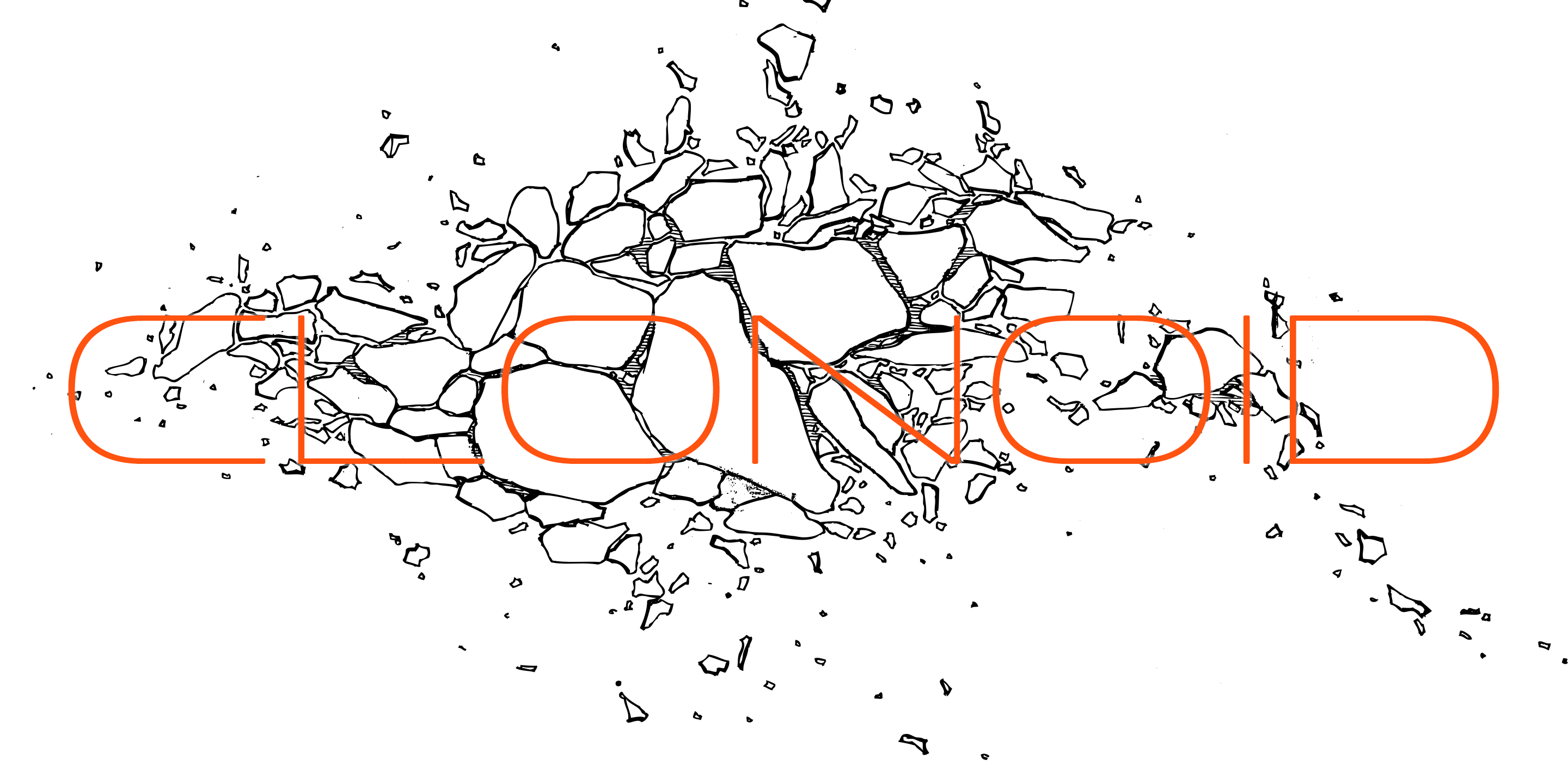
Clonoid Font is an incredibly versatile typeface, perfect for a wide range of design applications. Imagine it gracing the covers of sci-fi novels, enhancing the edgy vibe of gaming interfaces, or bringing a futuristic touch to tech company branding. Its unique aesthetic also makes it ideal for movie posters, album art, and striking website headers that demand attention. If you're looking to create an impact in digital art, event promotions, or even apparel design, Clonoid Font will undoubtedly elevate your visual communication.
What makes Clonoid Font so exciting is its distinct blend of modernism and a subtly retro, almost industrial feel. It’s a font that speaks volumes without being overly decorative, offering clean lines and powerful letterforms that command respect. This makes it an excellent choice for projects that aim for a sophisticated yet bold identity. Designers are constantly seeking fonts that can bridge the gap between contemporary trends and timeless appeal, and Clonoid Font does exactly that, providing a fresh take on established design principles.
The Clonoid Font family typically includes several weights, such as Regular, Bold, and perhaps even an Italic or Light version, offering flexibility for different design needs. These variations allow designers to create visual hierarchy and add depth to their compositions, ensuring consistency across various elements of a project. Whether you need a strong headline or legible body text, the various weights within the Clonoid Font family provide ample creative freedom. For an outstanding design, remember to check out Clonoid Font Free Download.